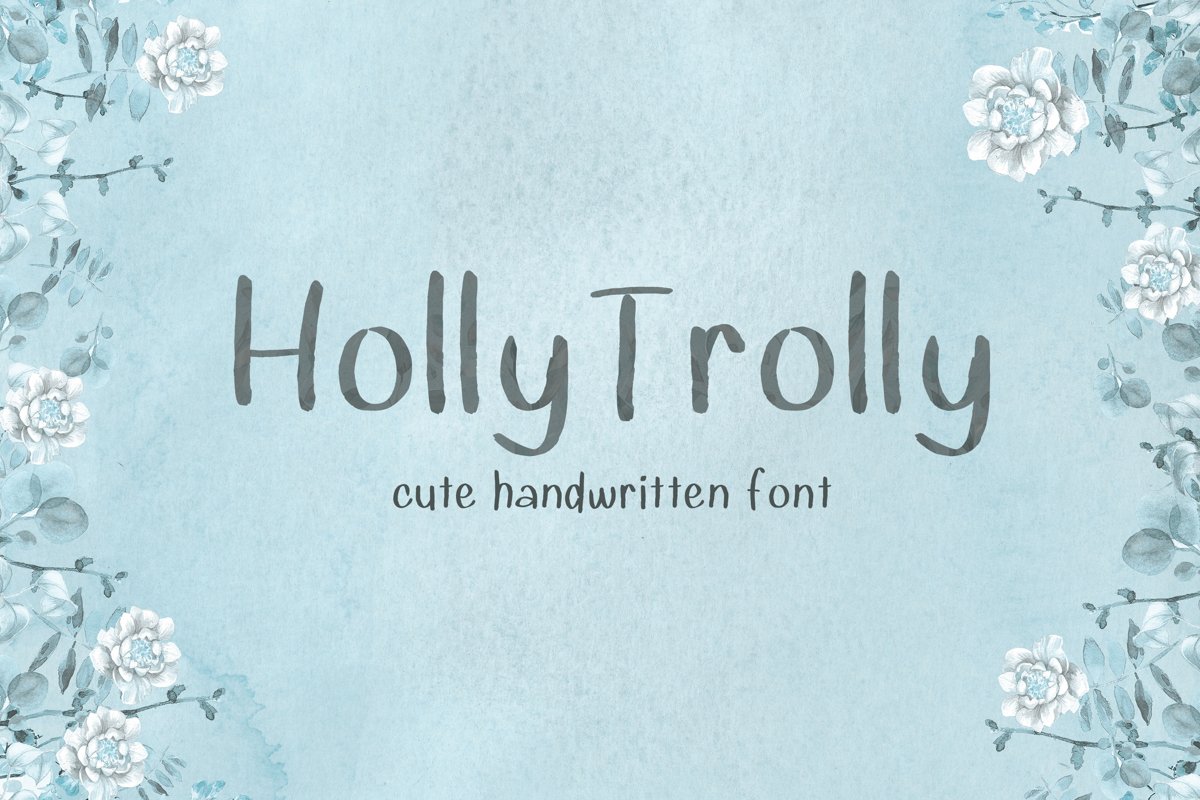
HollyTrolly
Sweet and funny handwritten font, fitting both formal and non-formal events. Its timeless style will be perfect for creating beautiful wedding invitations, greeting cards, logos and much more.